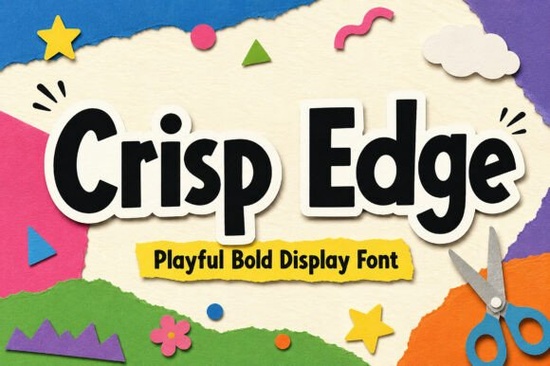
If you're looking for a display font that feels handmade but still reads as professional, Crisp Edge Font might be exactly what your next project needs. Designed with bold, clean lines and a subtle dimensional effect, it brings a cheerful, tactile energy to everything from kids’ event posters to craft shop signage. Unlike overly polished digital fonts, Crisp Edge leans into irregularity its slightly wobbly baseline and soft white sticker outline mimic the charm of paper cutouts, making it feel approachable without sacrificing visual impact.
What makes Crisp Edge stand out from other playful fonts?
Many sans-serif display fonts aim for fun, but Crisp Edge nails a specific aesthetic: think classroom art projects meets boutique branding. The thick letterforms are built with sharp geometric angles, yet they avoid feeling rigid thanks to their hand-cut vibe. The addition of a gentle drop shadow gives depth without overwhelming smaller designs ideal if you’re creating stickers, tote bags, or printable party decorations.
It’s also highly legible at large sizes, which matters whether you’re designing a school fair banner or packaging for a children’s craft kit. And because it’s a single-style font (not part of a massive family), it’s easy to implement without overcomplicating your workflow a plus for small business owners and hobbyists who value simplicity.
Who should use Crisp Edge Font?
This font shines in contexts where warmth and creativity matter more than corporate sleekness:
- Children’s brands – from boutique clothing labels to toy packaging
- Educators and school organizers – for posters, certificates, and event flyers
- Craft sellers on Etsy or print-on-demand platforms – especially those offering stickers, greeting cards, or wall art
- Hobbyists – anyone making DIY party decor, scrapbook elements, or personalized gifts
If your audience responds to authenticity and a touch of handmade whimsy, Crisp Edge delivers without looking amateurish.
How does it compare to similar fonts on Creative Fabrica?
Creative Fabrica offers plenty of bold sans-serifs, but each has its own personality. For example, Nugget shares a rounded, friendly feel but leans softer and more bubbly great for baby products. Qunotz has a quirky, uneven rhythm that works well for indie brands, while Realic offers a cleaner, more modern geometric structure.
If you’re drawn to texture and dimension, you might also like Rain Jungle, which blends organic shapes with bold strokes. And for something more tech-inspired but still readable, the Futuristic Technology Bundle explores sharp edges in a completely different direction think sci-fi, not scissors-and-glue.
None of these replicate Crisp Edge’s specific “construction paper” aesthetic, though. Its combination of thick outlines, subtle shadows, and off-kilter alignment is uniquely suited to joyful, hands-on creative projects.
Tips for using Crisp Edge effectively
Because of its bold weight and decorative nature, Crisp Edge works best as a headline or accent font not for body text. Keep these pointers in mind:
- Pair it with simple sans-serifs. Try neutral fonts like Montserrat, Lato, or even system fonts (Helvetica, Arial) for contrast.
- Avoid overcrowding. Give the letters room to breathe tight spacing undermines its handcrafted charm.
- Use color thoughtfully. It looks great in primary colors for kids’ themes, but also holds up in muted pastels or earth tones for a more sophisticated craft look.
- Test print output. The drop shadow and outline may need slight adjustments depending on your printer or production method.
For reference, you can explore the original design on Creative Fabrica: Crisp Edge.
Ready to try it?
If your next project calls for a font that’s energetic, clear, and full of character without veering into cartoonish territory Crisp Edge is worth a look. It bridges the gap between professional design and handmade joy, making it a reliable choice for creators who want their work to feel both intentional and inviting.
Before you download, ask yourself:
- Is this for a headline, logo, or short phrase? (If yes, it’s a good fit.)
- Does my audience appreciate tactile, playful aesthetics? (Think teachers, parents, crafters.)
- Do I have a complementary neutral font ready for supporting text?
- Will the final output support subtle effects like drop shadows? (Check your printer or POD platform specs.)
If most answers are “yes,” Crisp Edge could be the friendly, bold touch your design’s been missing.